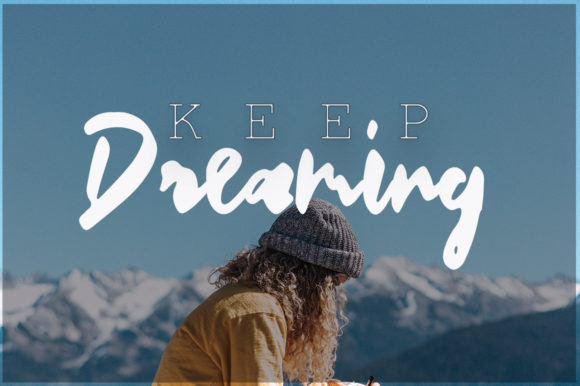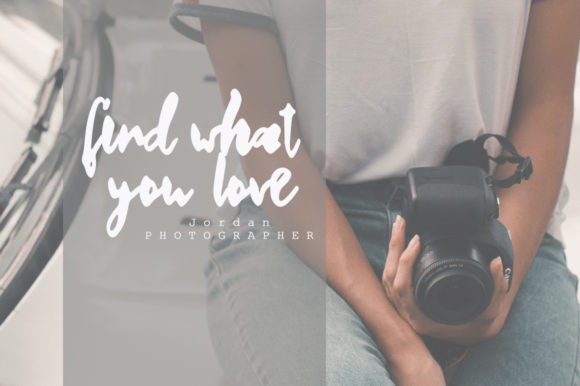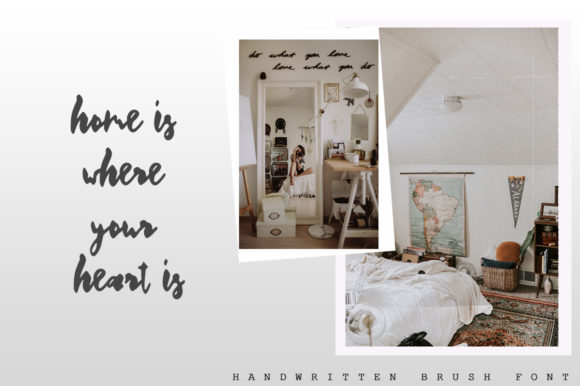
About Quimbro Font
The Quimbro is a handwritten brush script featuring a beautiful, subtle brush texture and an infinite amount of styling opportunities!
It pairs beautifully with many fonts and can be used in a variety of different scenarios!
Perfect for many design projects such as logo designs, branding, blog graphics, stylizing quotes, wedding stationery, art prints, collateral design, packaging, social media, and so on.